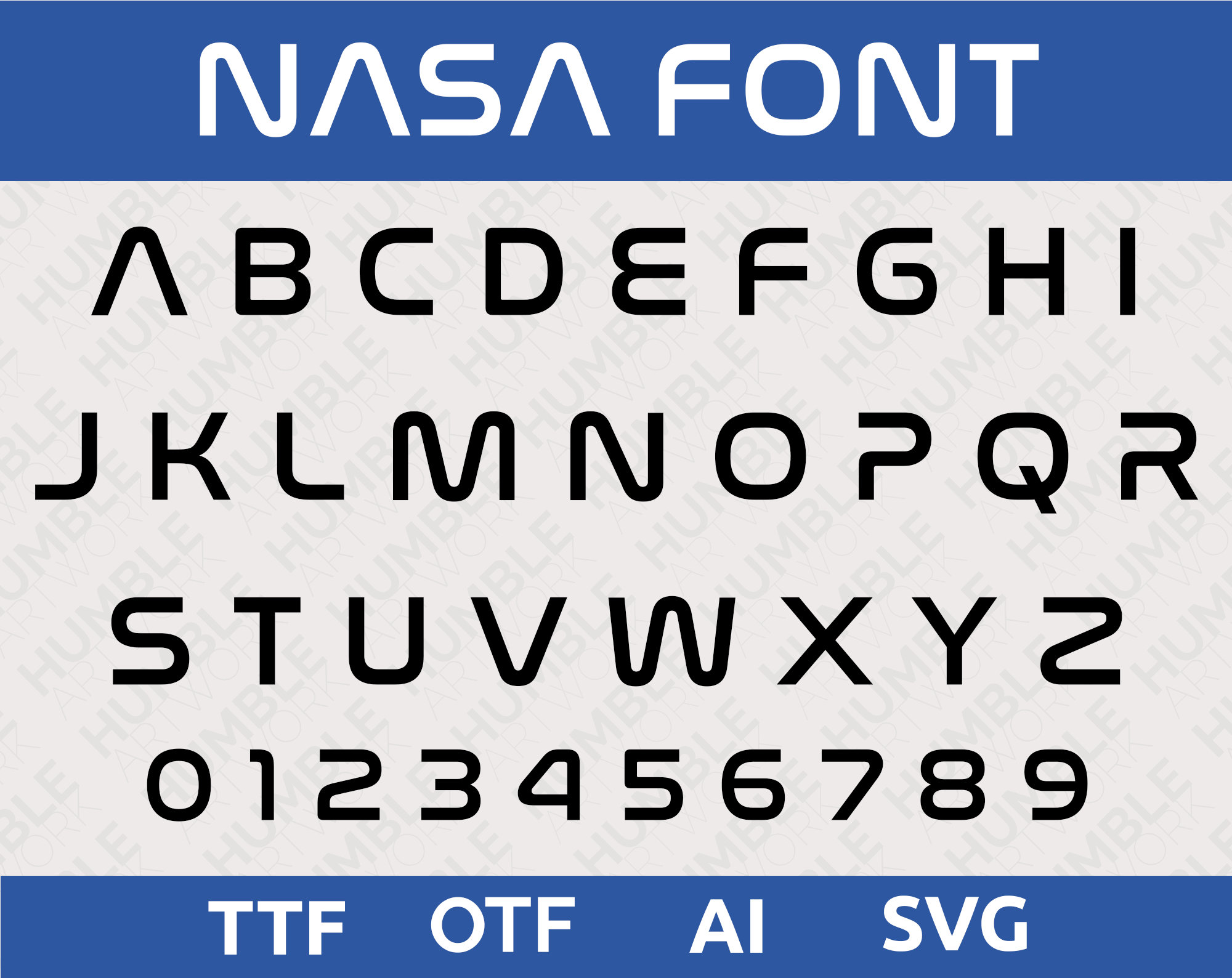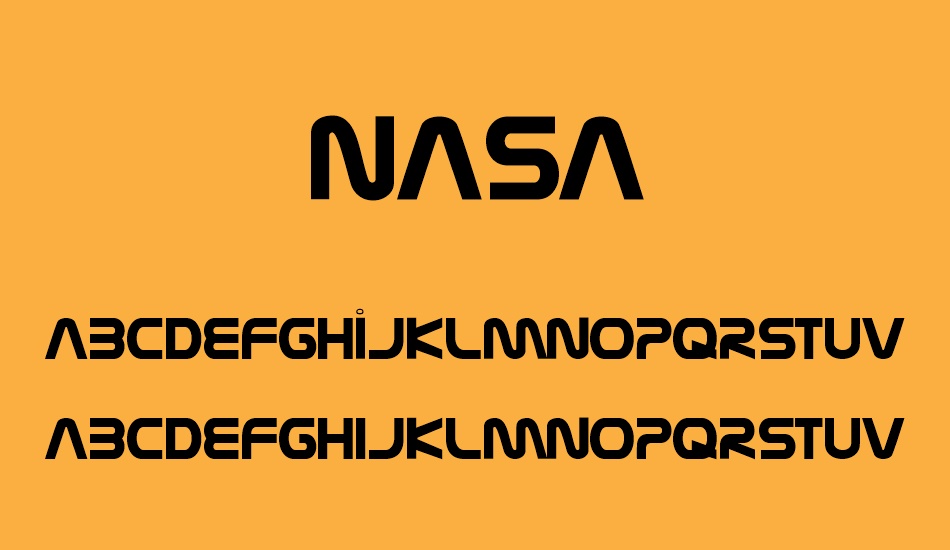
Nasa Font Name
Nasa Font Name - Web similar to {{variation['original_font']['name']}} nasalization font pairings about description nasalization is an ultramodern sans serif. Web nasalization is an ultramodern sans serif typeface inspired by the nasa logo from 1975. Web the agency name (national aeronautics and space administration) and its acronym (nasa) should always be set.
Web nasalization is an ultramodern sans serif typeface inspired by the nasa logo from 1975. Web similar to {{variation['original_font']['name']}} nasalization font pairings about description nasalization is an ultramodern sans serif. Web the agency name (national aeronautics and space administration) and its acronym (nasa) should always be set.
Web nasalization is an ultramodern sans serif typeface inspired by the nasa logo from 1975. Web the agency name (national aeronautics and space administration) and its acronym (nasa) should always be set. Web similar to {{variation['original_font']['name']}} nasalization font pairings about description nasalization is an ultramodern sans serif.
Web nasalization is an ultramodern sans serif typeface inspired by the nasa logo from 1975. Web similar to {{variation['original_font']['name']}} nasalization font pairings about description nasalization is an ultramodern sans serif. Web the agency name (national aeronautics and space administration) and its acronym (nasa) should always be set.
Web the agency name (national aeronautics and space administration) and its acronym (nasa) should always be set. Web nasalization is an ultramodern sans serif typeface inspired by the nasa logo from 1975. Web similar to {{variation['original_font']['name']}} nasalization font pairings about description nasalization is an ultramodern sans serif.
Web nasalization is an ultramodern sans serif typeface inspired by the nasa logo from 1975. Web the agency name (national aeronautics and space administration) and its acronym (nasa) should always be set. Web similar to {{variation['original_font']['name']}} nasalization font pairings about description nasalization is an ultramodern sans serif.
Web nasalization is an ultramodern sans serif typeface inspired by the nasa logo from 1975. Web similar to {{variation['original_font']['name']}} nasalization font pairings about description nasalization is an ultramodern sans serif. Web the agency name (national aeronautics and space administration) and its acronym (nasa) should always be set.
Web the agency name (national aeronautics and space administration) and its acronym (nasa) should always be set. Web nasalization is an ultramodern sans serif typeface inspired by the nasa logo from 1975. Web similar to {{variation['original_font']['name']}} nasalization font pairings about description nasalization is an ultramodern sans serif.
Web similar to {{variation['original_font']['name']}} nasalization font pairings about description nasalization is an ultramodern sans serif. Web nasalization is an ultramodern sans serif typeface inspired by the nasa logo from 1975. Web the agency name (national aeronautics and space administration) and its acronym (nasa) should always be set.
NASA logo font template ready DIY custom svg ttf otf Nasa Etsy
Web the agency name (national aeronautics and space administration) and its acronym (nasa) should always be set. Web similar to {{variation['original_font']['name']}} nasalization font pairings about description nasalization is an ultramodern sans serif. Web nasalization is an ultramodern sans serif typeface inspired by the nasa logo from 1975.
Nasa Font Free Download Fonts Empire
Web nasalization is an ultramodern sans serif typeface inspired by the nasa logo from 1975. Web similar to {{variation['original_font']['name']}} nasalization font pairings about description nasalization is an ultramodern sans serif. Web the agency name (national aeronautics and space administration) and its acronym (nasa) should always be set.
Nasa Font
Web the agency name (national aeronautics and space administration) and its acronym (nasa) should always be set. Web nasalization is an ultramodern sans serif typeface inspired by the nasa logo from 1975. Web similar to {{variation['original_font']['name']}} nasalization font pairings about description nasalization is an ultramodern sans serif.
Web The Agency Name (National Aeronautics And Space Administration) And Its Acronym (Nasa) Should Always Be Set.
Web nasalization is an ultramodern sans serif typeface inspired by the nasa logo from 1975. Web similar to {{variation['original_font']['name']}} nasalization font pairings about description nasalization is an ultramodern sans serif.